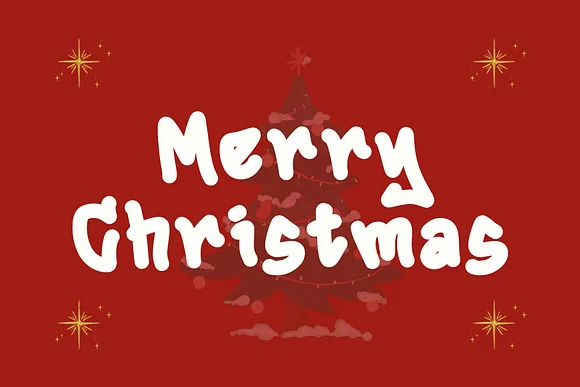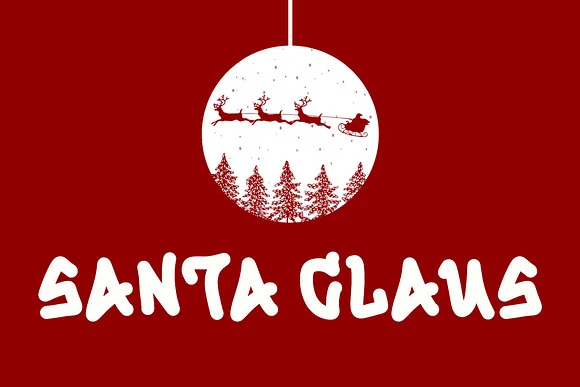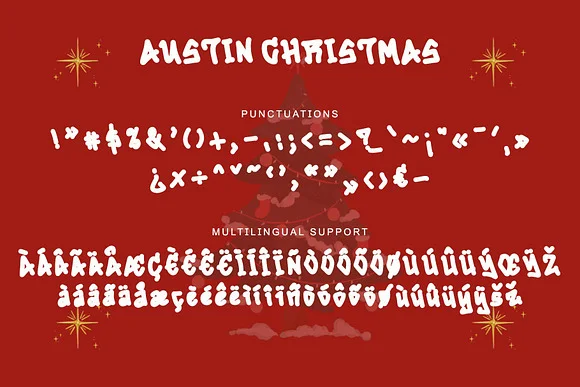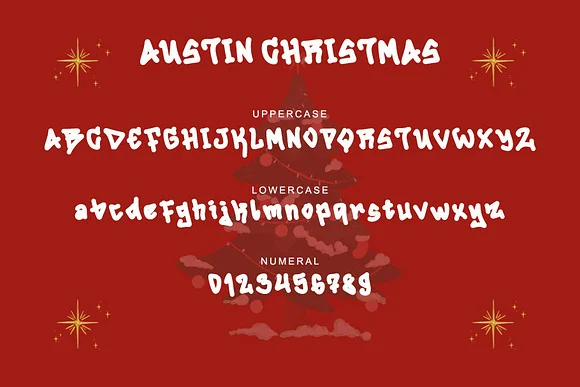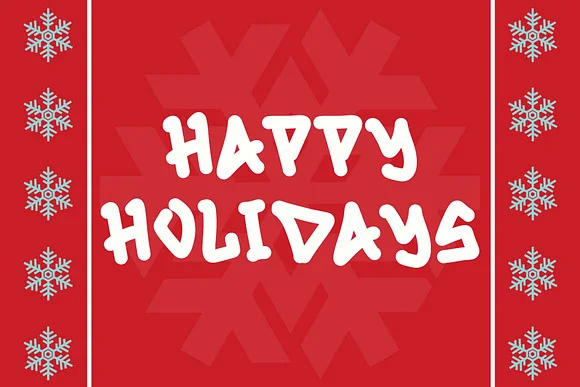
Austin Christmas Font
This distinctive font is perfect for Texas Christmas celebrations, southern holiday events, western-themed Christmas parties, country Christmas cards, rustic holiday decorations, Texan seasonal marketing, cowboy Christmas festivals, southern comfort holiday branding, ranch-style Christmas invitations, and southwestern seasonal advertising campaigns.
Austin Christmas Font is exciting because it uniquely blends the festive spirit of Christmas with the bold, independent character of Texas culture, creating typography that captures the warmth of southern hospitality during the holiday season. The font features strong, confident letterforms with subtle western influences and rustic charm that reflect the distinctive personality of Austin's creative community. Each character showcases robust construction with gentle curves that evoke both Christmas warmth and Texas pride, incorporating elements that suggest the unique way Texans celebrate the holidays - with big hearts, generous spirits, and authentic style. The design balances traditional Christmas joy with the adventurous, free-spirited nature that defines Austin's cultural landscape.
The Austin Christmas Font family includes regionally inspired variations: Regular, Bold, Light, Rustic, and Vintage versions. The collection features special Texas-themed elements including star accents, western flourishes, longhorn details, and southwestern ornaments. Additional components include ranch-style borders, country frames, Texas-sized decorations, and authentic southwestern ornamental designs that enhance the font's regional Christmas appeal and create cohesive Texan holiday themes.
Designers working on southern Christmas projects will find Austin Christmas Font to be an invaluable resource for creating authentic regional holiday communications that resonate with Texas audiences and southern Christmas traditions. This thoughtfully crafted font transforms standard holiday messaging into distinctively Texan Christmas expressions that celebrate both festive traditions and local cultural pride.
The typeface includes comprehensive character support with regional styling that maintains excellent readability while conveying the authentic spirit of Texas Christmas celebrations. The font's robust design ensures strong performance across all applications, from intimate family invitations to large-scale festival banners.
Perfect for Texas businesses, southern event planners, country Christmas celebrations, and southwestern holiday marketing, this font delivers authentic regional impact that communicates genuine Texas Christmas spirit through typography that's as big and bold as the Lone Star State itself.